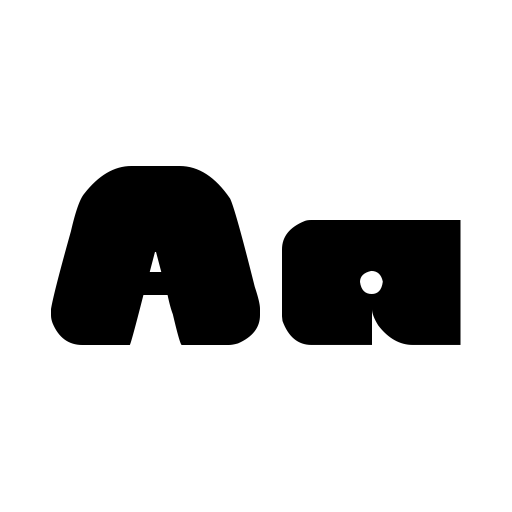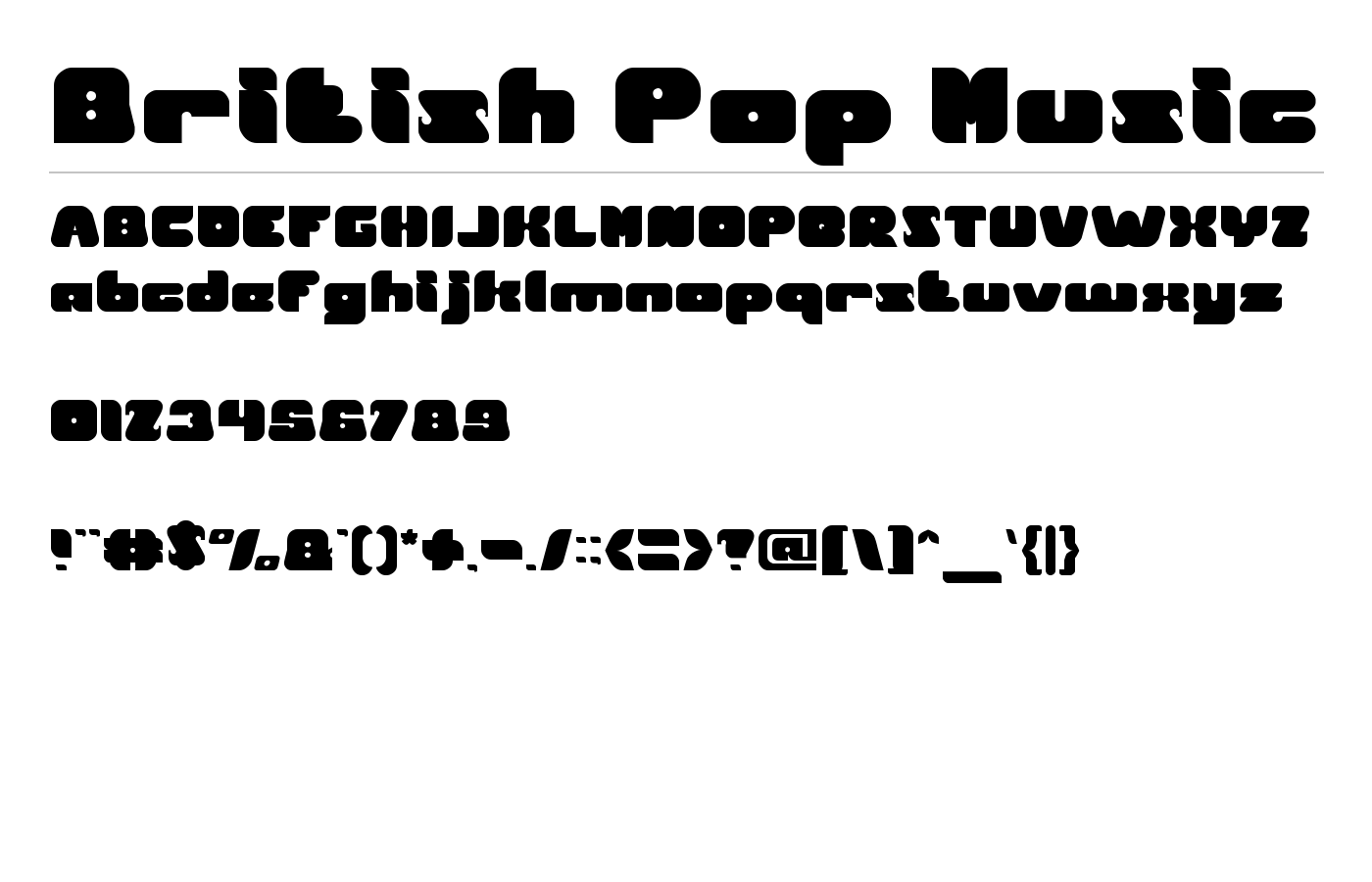
British Pop Music is a bold, rounded sans serif font with a playful, retro vibe reminiscent of 1960s pop culture. Its chunky letterforms and unique soft corners give it a fun and energetic feel, making it ideal for vibrant logos, posters, and branding that seeks a vintage yet modern twist. This font works best in eye-catching headlines and creative projects where personality and a touch of nostalgia are key.
British Pop Music Font
About British Pop Music Font